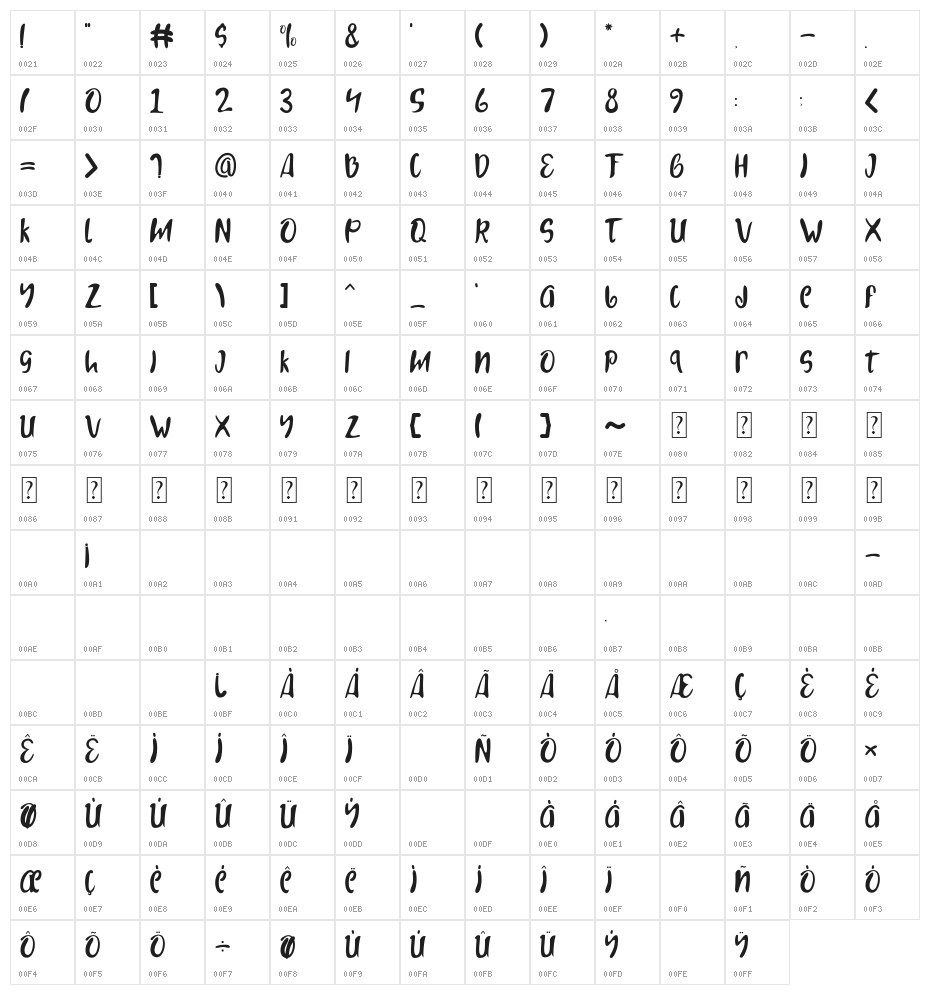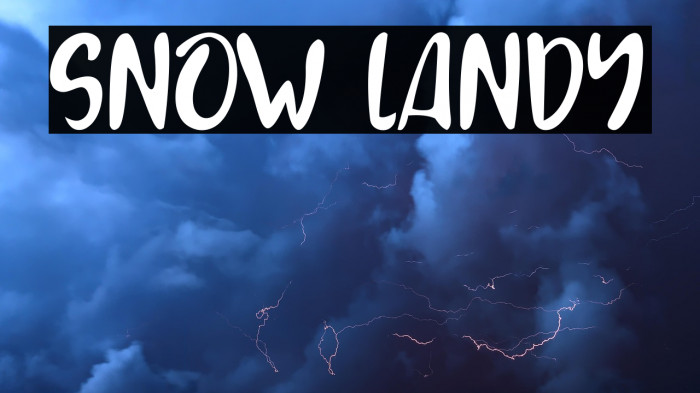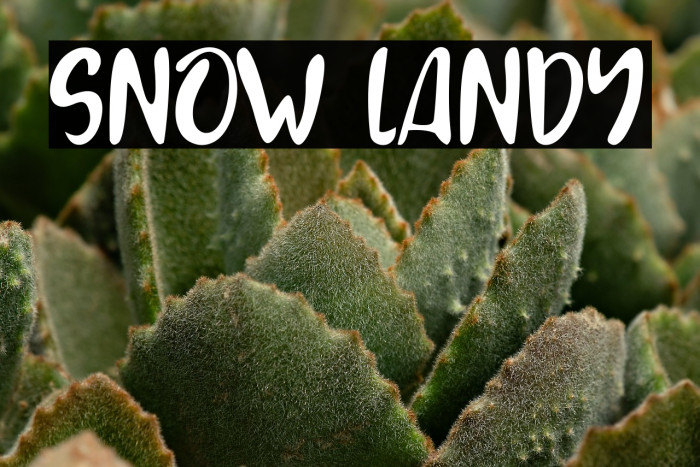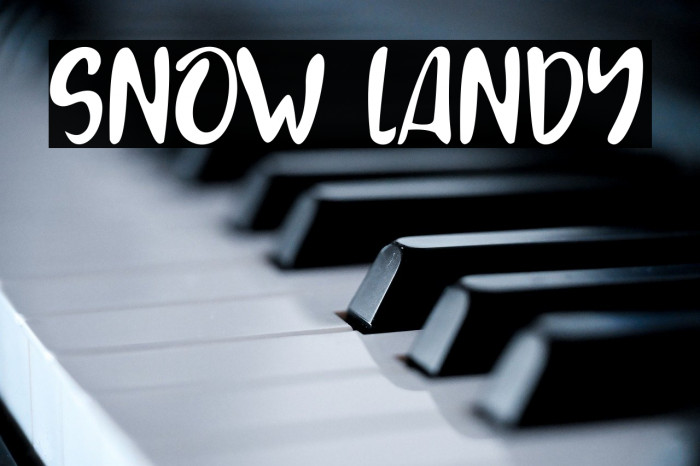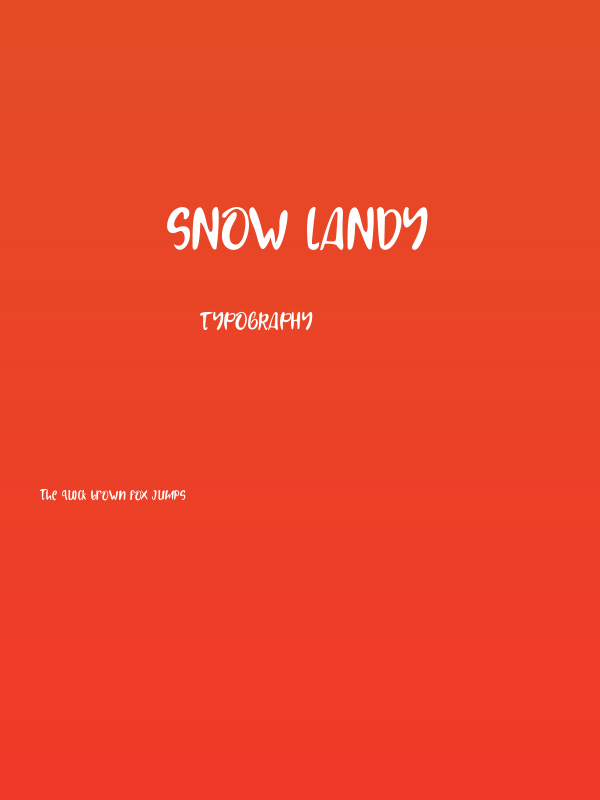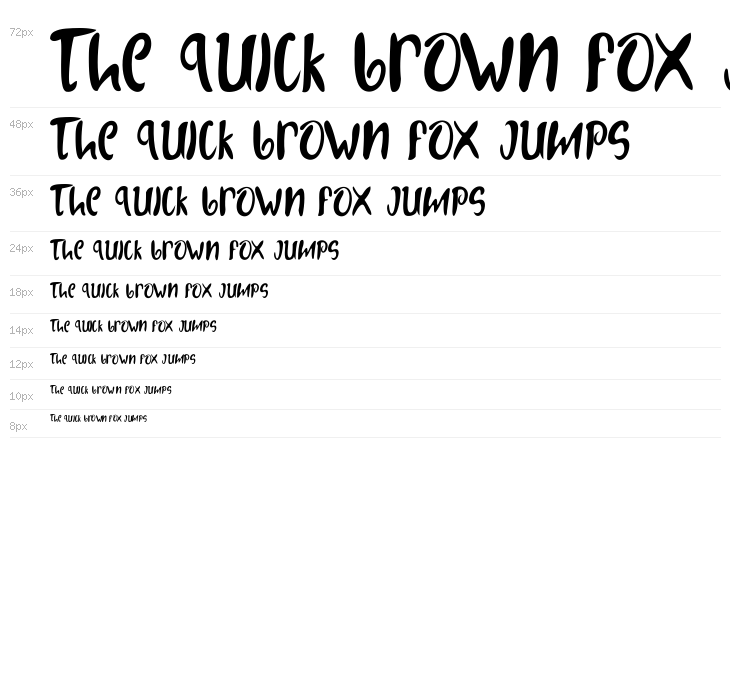
SNOW LANDY Font
SNOW LANDY Description
This font features a playful and dynamic script style with a hand-drawn appearance. The characters are bold and slightly slanted, giving a sense of movement and energy. The strokes are thick and rounded, with a consistent flow that adds to its casual and friendly look. The uppercase and lowercase letters maintain a cohesive style, while the numerals and special characters complement the overall design. This font is ideal for projects that require a personal touch or an informal vibe.
| Proposed Projects | Great for greeting cards, invitations, posters, and branding that seeks a casual and friendly tone. |